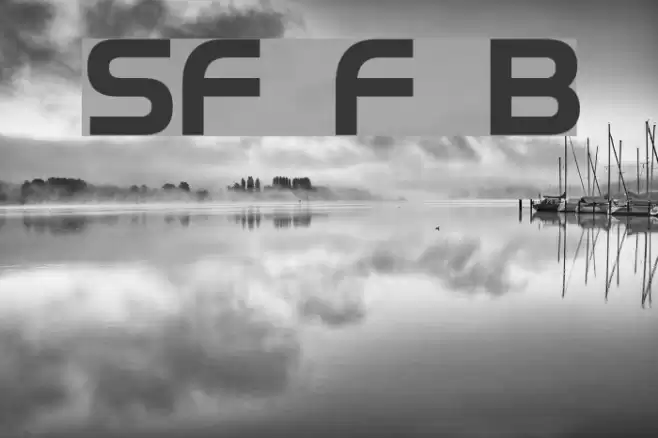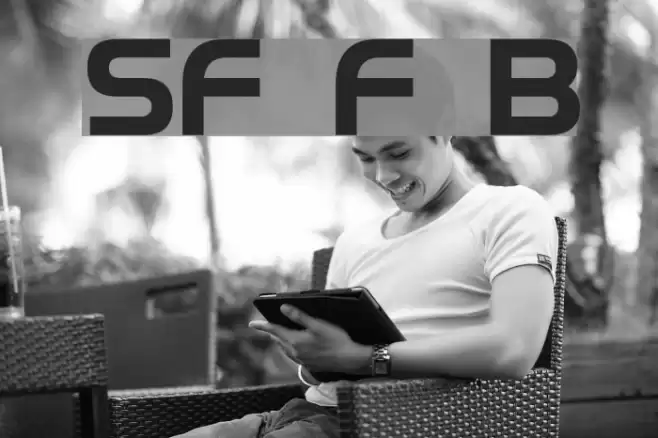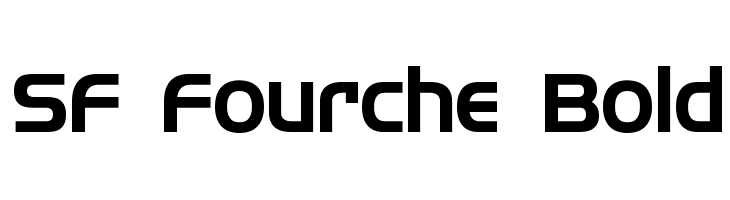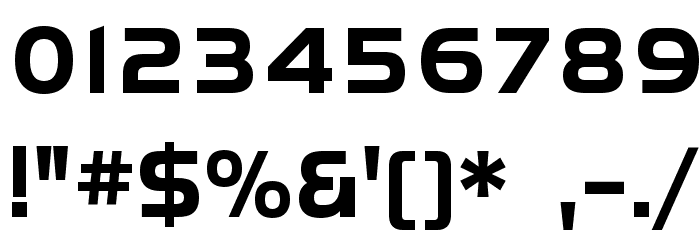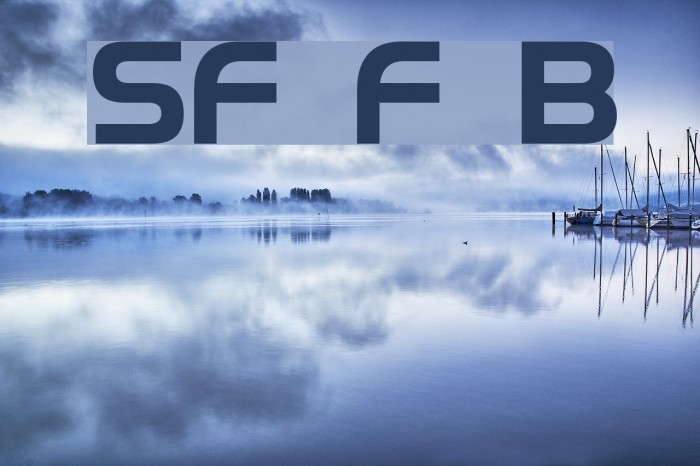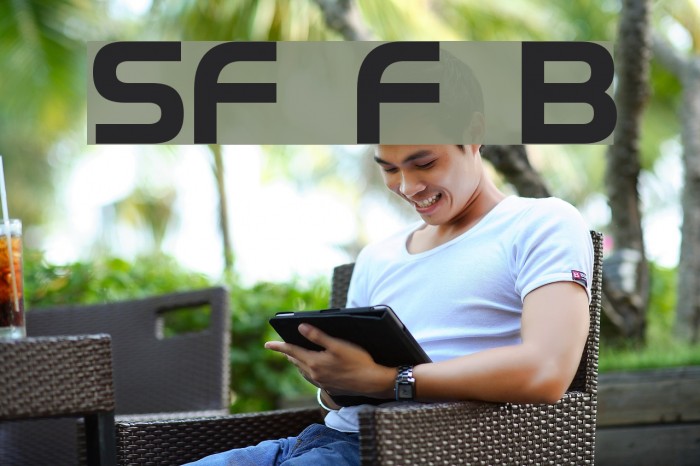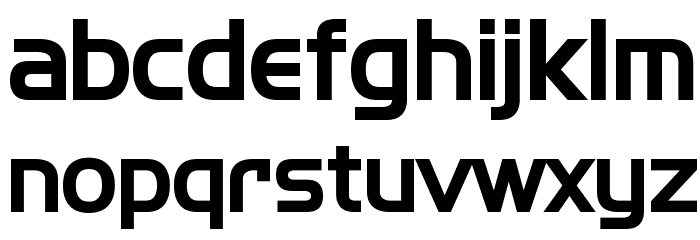
SF Fourche Bold Font
SF Fourche Bold Description
This font features a bold and modern sans-serif style with clean, geometric lines and a strong presence. The characters are well-defined with a uniform stroke width, providing a consistent and balanced appearance. The uppercase letters are slightly wider than the lowercase, offering a sense of stability and strength. The numbers are clear and easily distinguishable, making them suitable for various applications. Special characters are designed with the same attention to detail, ensuring they integrate seamlessly with the rest of the typeface.
A bold, modern sans-serif font with geometric lines and uniform strokes from Uncategorized fonts.
- Proposed Projects: Ideal for branding, advertising, headlines, and digital interfaces where a strong, modern look is desired.
- Use Case: Headlines, Logos, Digital Interfaces